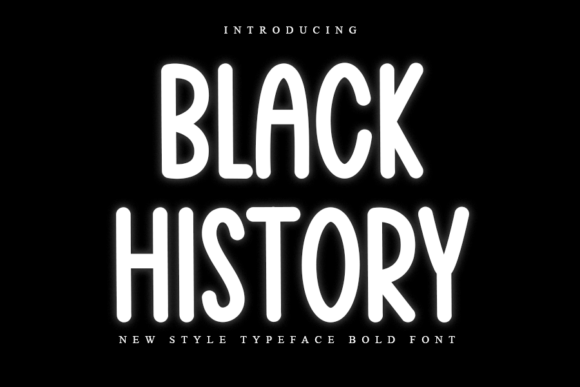
Introducing Black History Font - the must-have display font for your next creative project! Created by PAYJHOshop, this font has been dubbed the "Best Font For Web Design 2014" and for good reason. Black History Font is not only cool and modern, but it also has the potential to become your go-to font for any occasion.
Looking to elevate your digital designs and presentations? Black History Font is the perfect choice. Its clean lines and bold letters are sure to catch the eye of your audience, making your message stand out from the rest.
Crafters, rejoice! Black History Font is also great for DIY projects such as creating greeting cards and personalized gifts. Its versatility allows you to use it for any occasion, whether it's a birthday, anniversary, or holiday celebration.
But don't just take our word for it - the keyword "Best Font For Web Design 2014" speaks for itself. Black History Font has been recognized as a top choice by industry experts and designers alike. With its unique and creative style, this font is sure to make your work shine.